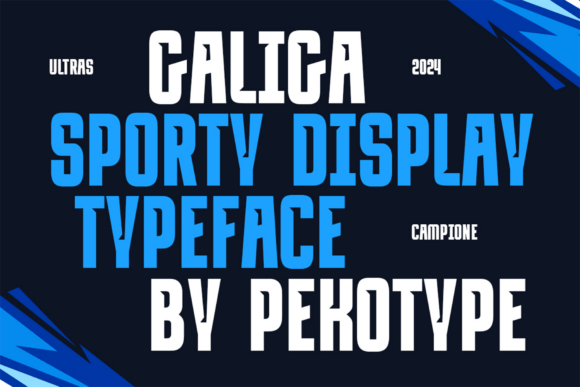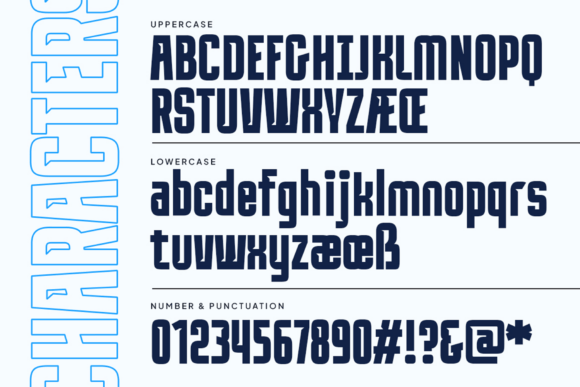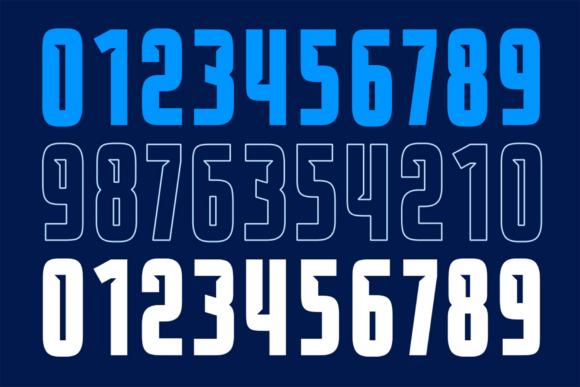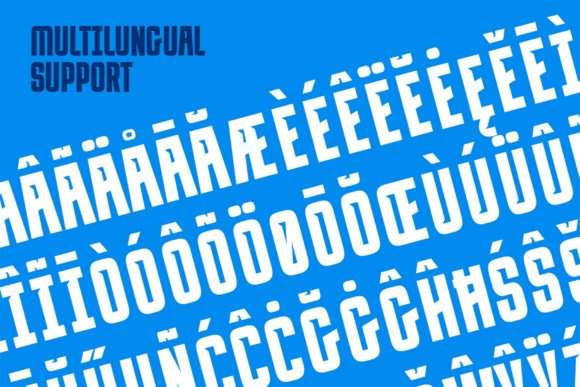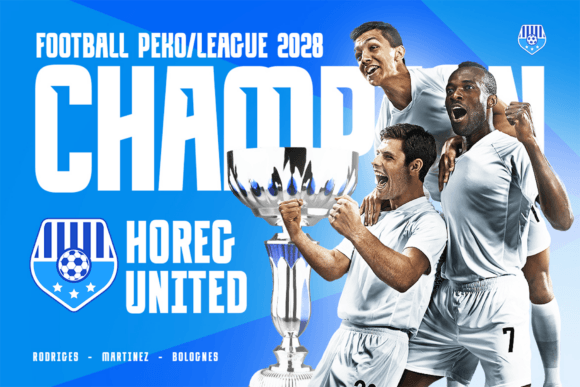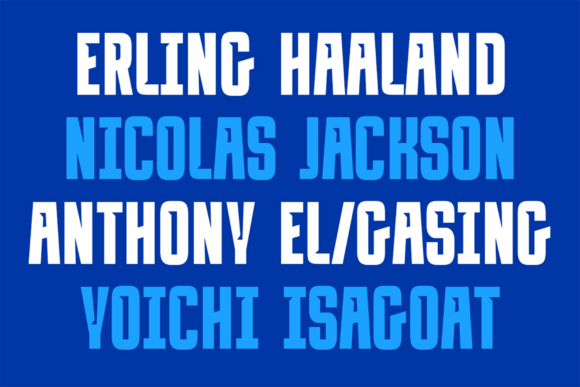
Introducing Galiga Font: The Ultimate Typeface for Bold and Dynamic Designs
In the world of design, typography plays a crucial role in conveying a message and making a lasting impression. For designers and crafters looking to elevate their game, Galiga Font is here to revolutionize the way you approach your designs. This sleek, modern typeface is built to bring an electrifying presence to your creations, making it perfect for bold branding, dynamic logos, and high-impact social media graphics.
Unleash the Power of Galiga Font
Galiga Font is specifically designed to capture attention with every letter, making it an ideal choice for sports-driven visuals, especially in football. Its strong lines and athletic style make it a powerhouse choice for designers looking to create bold and dynamic designs. Whether you’re working on a logo, social media graphics, or branding materials, Galiga Font is the perfect tool to help you redefine your look and take your designs to the next level.
The Perfect Blend of Modern and Momentum
Galiga Font embodies the perfect blend of modern and momentum, making it a versatile typeface that can be used in a variety of design applications. Its sleek and modern design ensures that your creations look fresh and contemporary, while its athletic style injects a sense of energy and dynamism into your work. With Galiga Font, you can create designs that are not only visually stunning but also convey a sense of movement and momentum.
Why Choose Galiga Font?
So, why choose Galiga Font over other typefaces? Here are just a few reasons why Galiga Font stands out from the rest:
- Bold and Dynamic: Galiga Font is designed to make a statement, making it perfect for bold branding, dynamic logos, and high-impact social media graphics.
- Athletic Style: Its strong lines and athletic style make it a powerhouse choice for sports-driven visuals, especially in football.
- Versatile: Galiga Font can be used in a variety of design applications, from logos and branding materials to social media graphics and more.
- Modern and Fresh: Its sleek and modern design ensures that your creations look fresh and contemporary.
How to Use Galiga Font in Your Designs
Using Galiga Font in your designs is easy. Here are a few tips to get you started:
- Pair it with Other Fonts: Galiga Font pairs well with other fonts, making it easy to create visually stunning designs.
- Experiment with Colors: Galiga Font looks great in a variety of colors, so don’t be afraid to experiment and find the perfect combination for your design.
- Use it for Headings and Titles: Galiga Font is perfect for headings and titles, making it a great choice for designers looking to add a bold and dynamic touch to their work.
In conclusion, Galiga Font is a game-changer for designers and crafters looking to elevate their game and create bold and dynamic designs. Its sleek, modern design, athletic style, and versatility make it a powerhouse choice for sports-driven visuals, especially in football. With Galiga Font, you can create designs that are not only visually stunning but also convey a sense of energy and momentum. So why wait? Embrace the energy and redefine your look with Galiga Font – where modern meets momentum!
Get Ready to Elevate Your Game with Galiga Font
Ready to take your designs to the next level with Galiga Font? Here’s a quick recap of what you need to know:
- Galiga Font: A sleek, modern typeface built to bring an electrifying presence to your designs.
- Perfect for: Bold branding, dynamic logos, and high-impact social media graphics, especially in football.
- Key Features: Strong lines, athletic style, versatile, and modern.